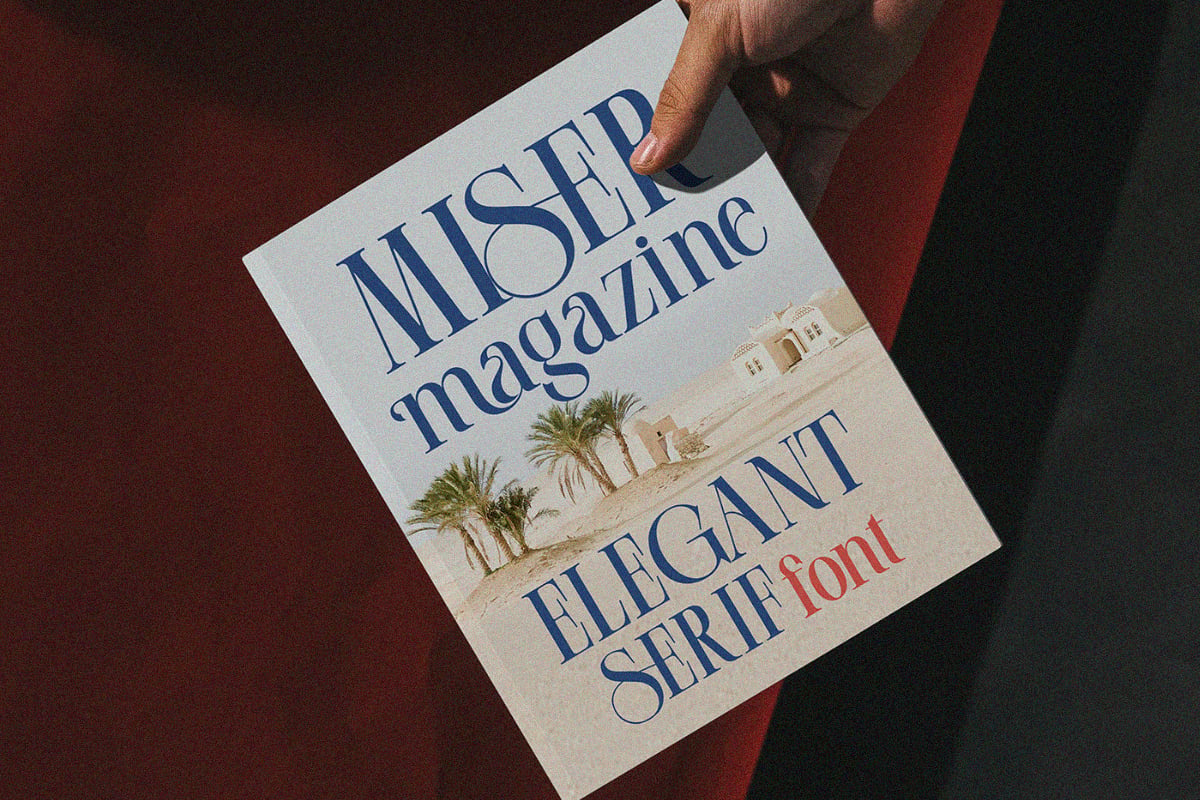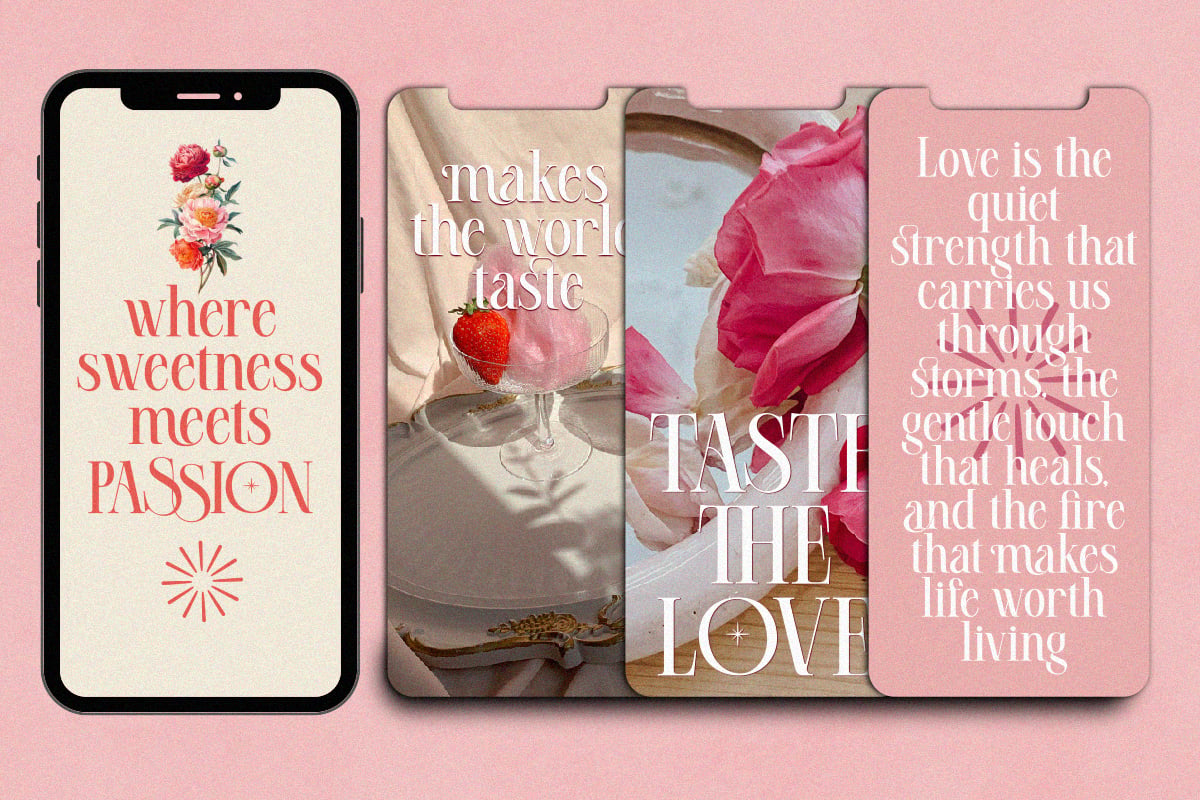
Malika Rosse Font
Malika Rosse Font is a versatile typeface ideal for various projects, including logos, branding, posters, blog headers, advertisements. The free version includes a full set of uppercase and lowercase letters, available in OTF format.